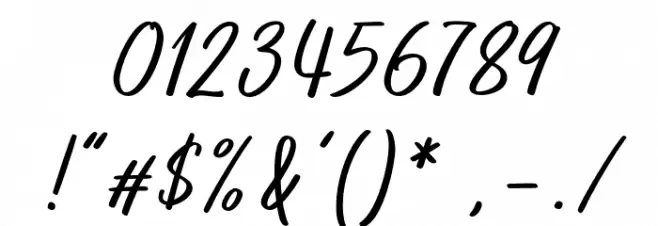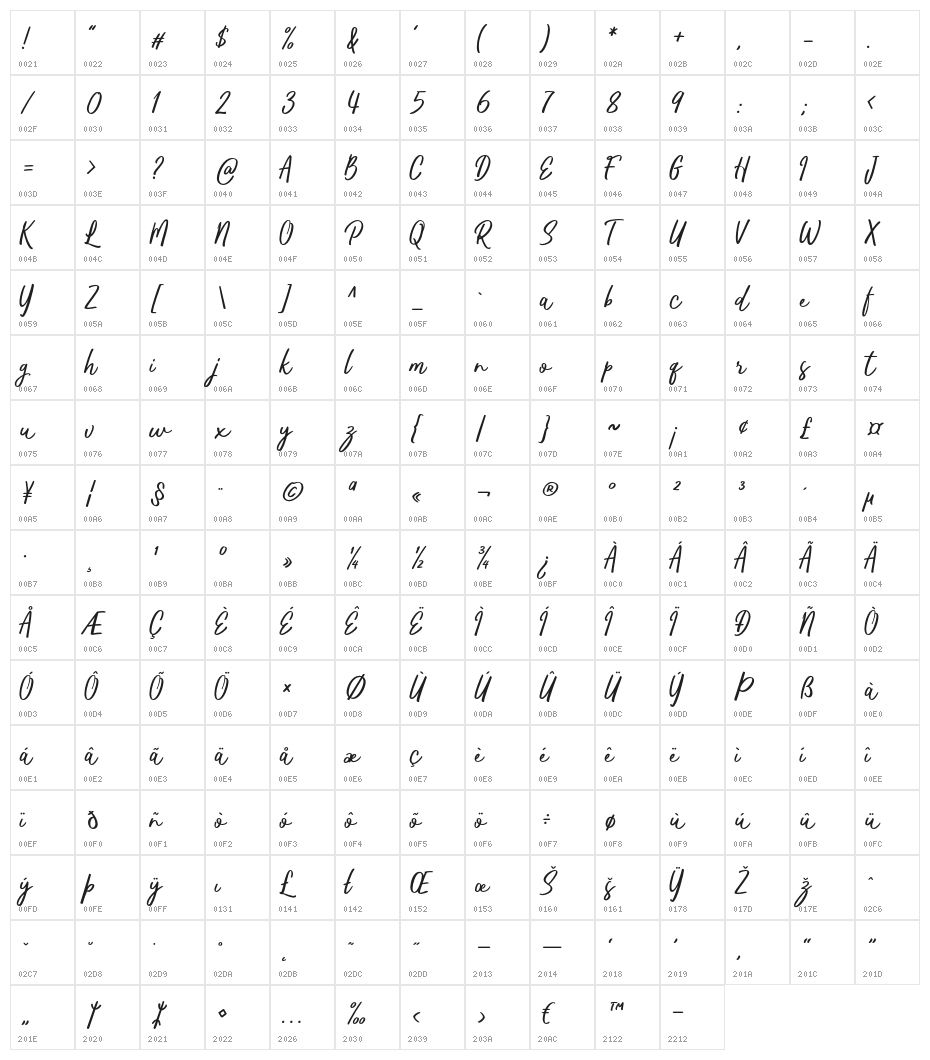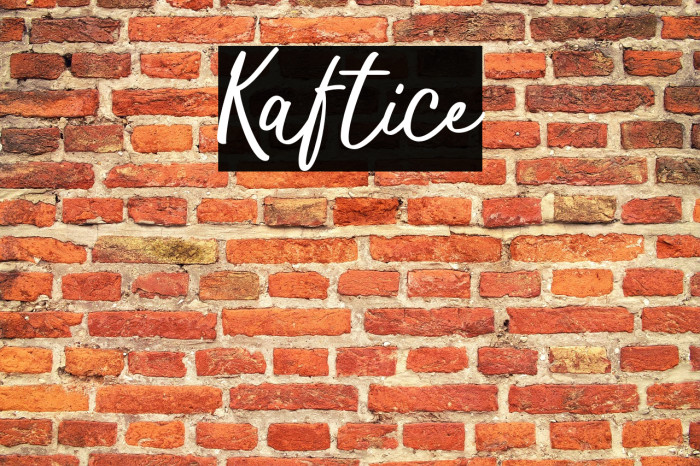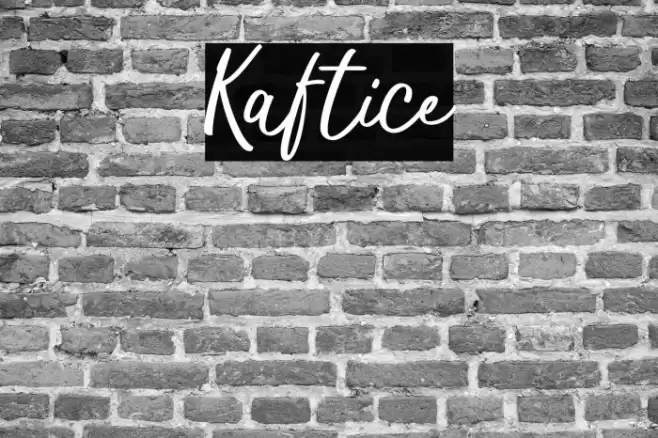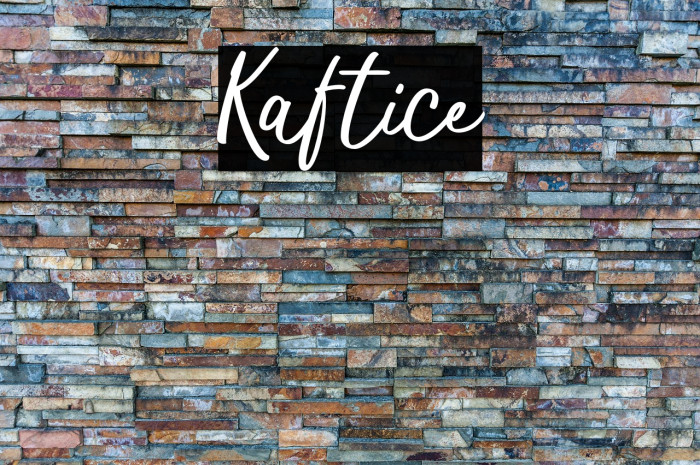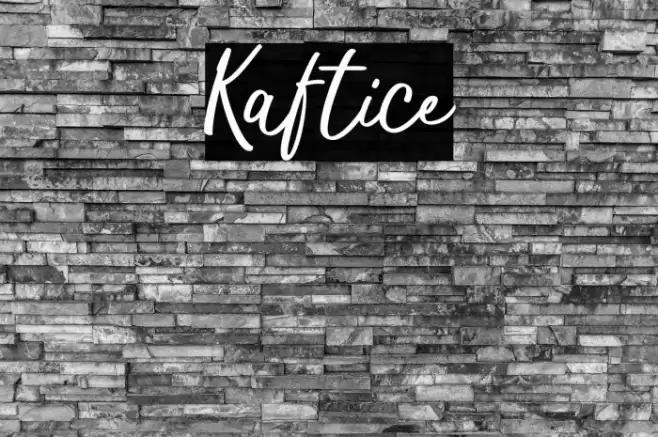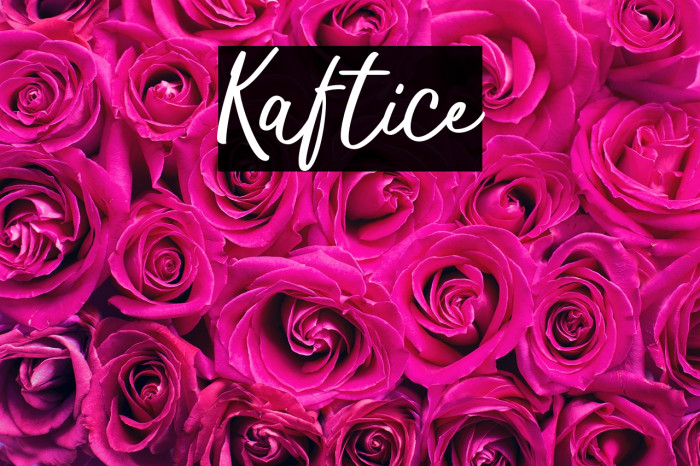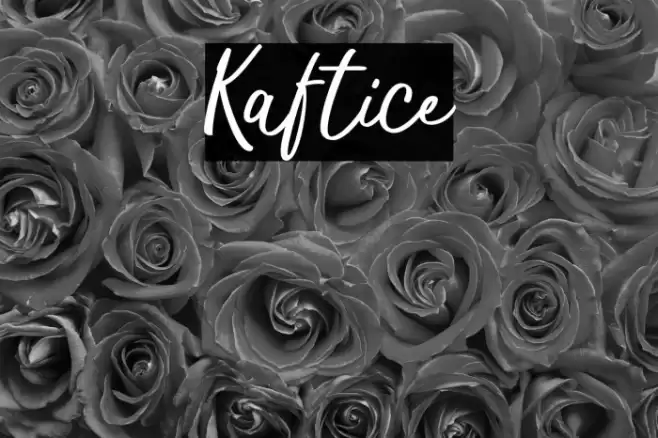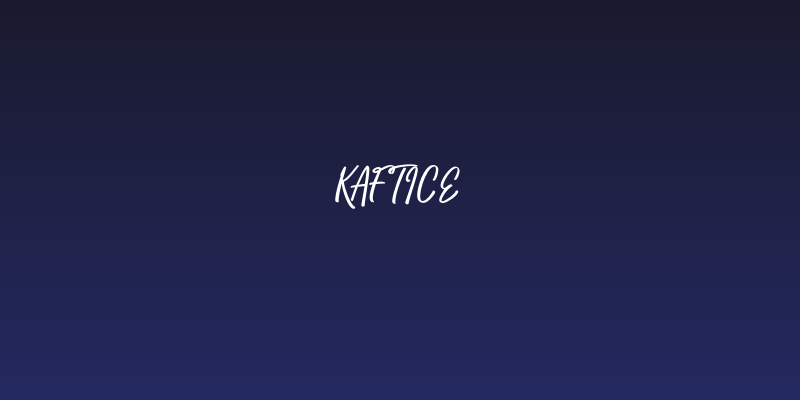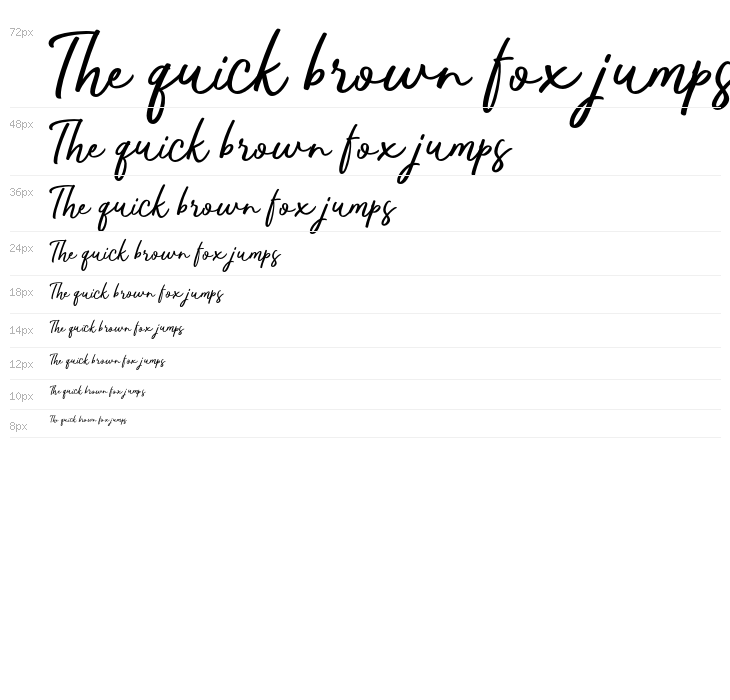
Kaftice Font
Kaftice Description
This font features a flowing, cursive style with a handwritten appearance. The letters are elegantly connected, creating a sense of fluidity and movement. The uppercase letters are bold and slightly slanted, while the lowercase letters maintain a consistent, smooth flow. The numerals and special characters are designed to complement the overall script style, adding a touch of sophistication. The font's organic curves and balanced proportions make it suitable for creative and expressive design projects.
| Proposed Projects | Ideal for wedding invitations, greeting cards, branding, and logo design where a personal and elegant touch is desired. |